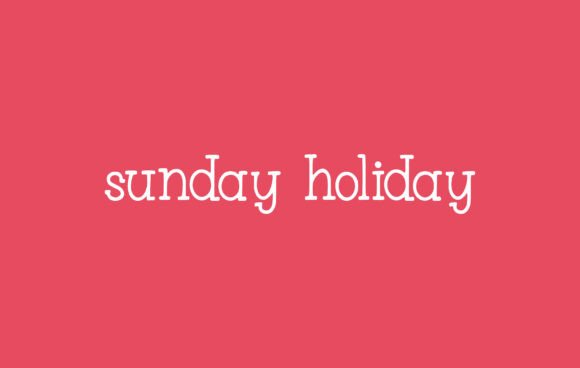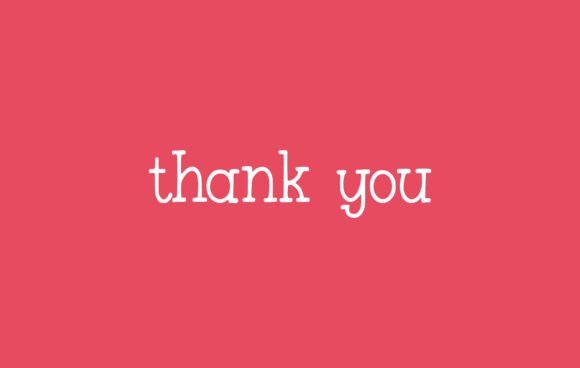
Introducing Brandon Font: The Ultimate Handwritten Font for Creative Projects
Are you tired of using the same old fonts for your creative projects? Look no further than Brandon Font, an authentic handwritten font with a romantic touch that’s sure to take your designs to the next level. Expertly designed to be a true favorite among designers and crafters, Brandon Font is the perfect choice for anyone looking to add a personal touch to their work.
What Makes Brandon Font So Special?
Brandon Font is more than just a font – it’s an experience. With its unique blend of elegance and playfulness, this font is sure to capture the attention of your audience and leave a lasting impression. Whether you’re designing a magazine headline, social media post, or wedding invitation, Brandon Font is the perfect choice for adding a touch of sophistication and whimsy to your work.
Key Features of Brandon Font
- Legible and Versatile: Brandon Font is designed to be easy to read, making it perfect for use as both title and body text. Its versatility means you can use it for a wide range of projects, from print materials to digital designs.
- Romantic and Elegant: With its flowing lines and delicate curves, Brandon Font adds a touch of romance and elegance to any design. It’s perfect for wedding invitations, anniversary cards, and other special occasions.
- High-Quality Design: Brandon Font is expertly designed to ensure that it looks great in any context. Its high-quality design means that it will remain clear and legible even at small sizes.
Uses for Brandon Font
Brandon Font is a versatile font that can be used for a wide range of creative projects, including:
- Magazine Headlines: Add a touch of elegance and sophistication to your magazine headlines with Brandon Font.
- Social Media: Stand out on social media with eye-catching graphics and posts designed with Brandon Font.
- Branding: Use Brandon Font to create a unique and memorable brand identity for your business or organization.
- Wedding Invitations: Add a touch of romance and whimsy to your wedding invitations with Brandon Font.
- Cards and Stationery: Use Brandon Font to create beautiful and elegant cards and stationery for any occasion.
Why Designers and Crafters Love Brandon Font
Designers and crafters love Brandon Font for its unique blend of elegance and playfulness. Here are just a few reasons why:
- High-Quality Design: The high-quality design of Brandon Font ensures that it will look great in any context, from print materials to digital designs.
- Versatile: Brandon Font is versatile enough to be used for a wide range of projects, from magazine headlines to wedding invitations.
If you’re looking for a font that will take your creative projects to the next level, look no further than Brandon Font. With its unique blend of elegance and playfulness, this font is sure to capture the attention of your audience and leave a lasting impression. Whether you’re a designer, crafter, or DIY enthusiast, Brandon Font is the perfect choice for adding a personal touch to your work.
Get Ready to Elevate Your Designs with Brandon Font